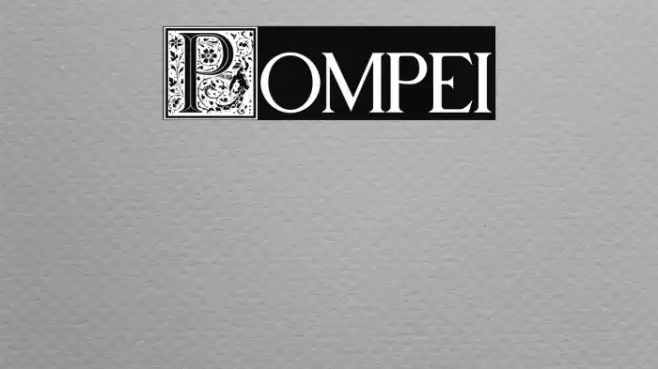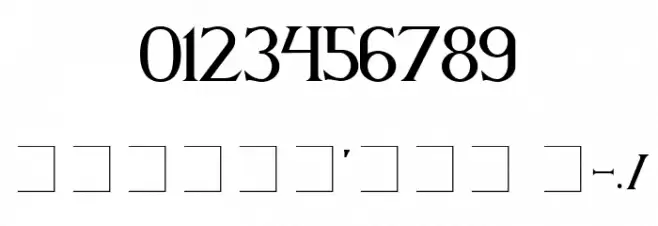
Pompei Font
Pompei Description
This font features a classic and elegant serif style with a touch of vintage charm. The uppercase letters are adorned with intricate decorative patterns, giving them a unique and ornate appearance. The lowercase letters maintain a more traditional serif look, providing a nice contrast to the embellished uppercase. The numerals are clean and consistent with the serif style, ensuring readability. The special characters are minimalistic, complementing the overall sophisticated design. This font is perfect for projects that require a touch of historical elegance and artistic flair.
A classic serif font with ornate uppercase and traditional lowercase letters from Uncategorized fonts.
- Proposed Projects: Ideal for wedding invitations, historical publications, luxury branding, and decorative headings.
- Overall Style: Vintage